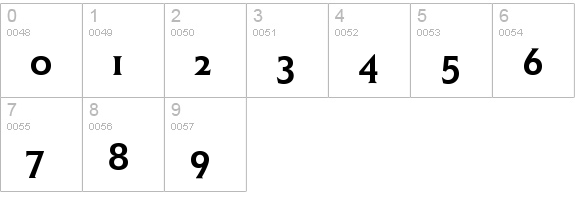
ElanEF-MediumSC font is a stylish and modern typeface that exudes elegance and sophistication. With its sleek and streamlined design, this font is perfect for a wide range of projects, from branding to editorial design. The medium weight of the font strikes a perfect balance between boldness and readability, making it ideal for both headlines and body text. What sets ElanEF-MediumSC font apart is that it is available for free download at FontsMarket.com. This means that you can easily access and use this high-quality font in your projects without any cost. Whether you're a professional designer or a hobbyist looking to elevate your creations, ElanEF-MediumSC font offers a versatile and stylish option that won't break the bank. Download ElanEF-MediumSC font today from FontsMarket.com and add a touch of sophistication and flair to your designs with this exceptional typeface.